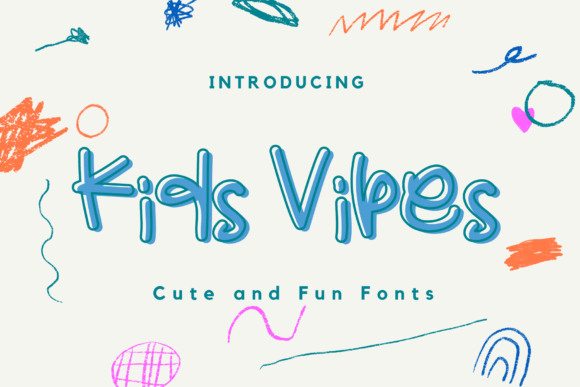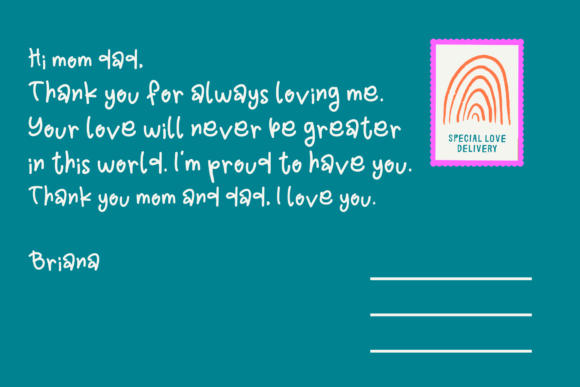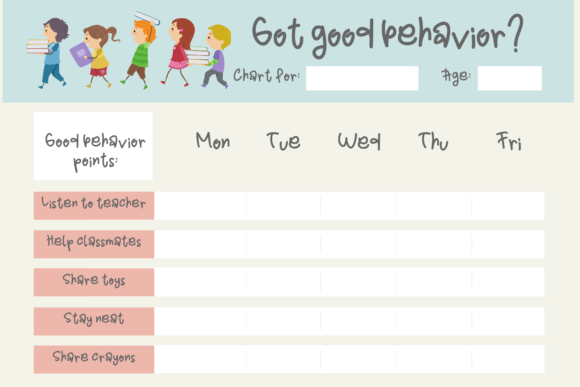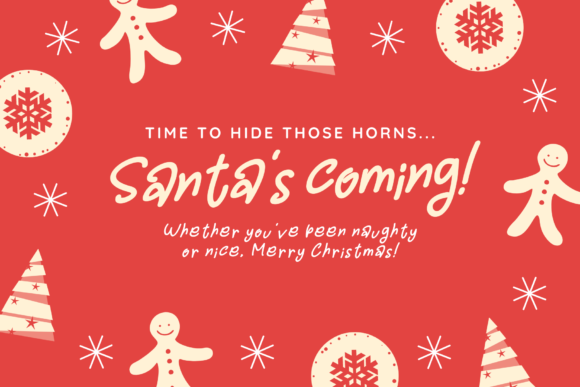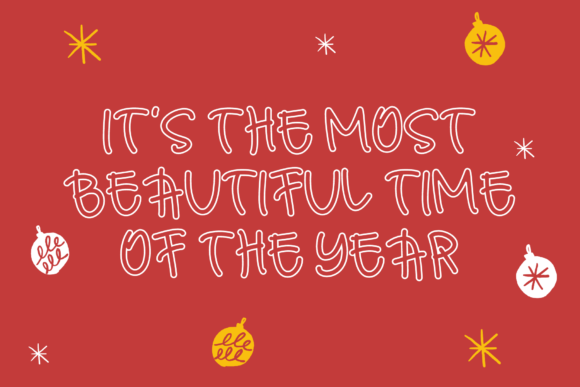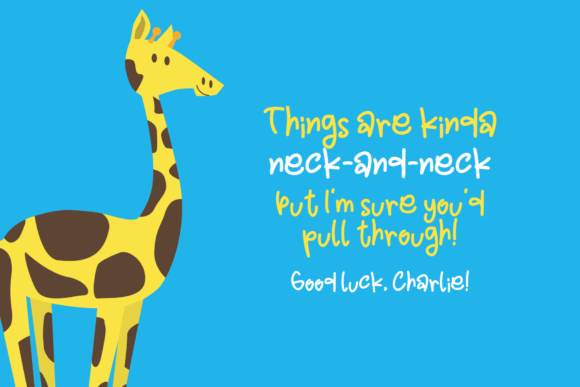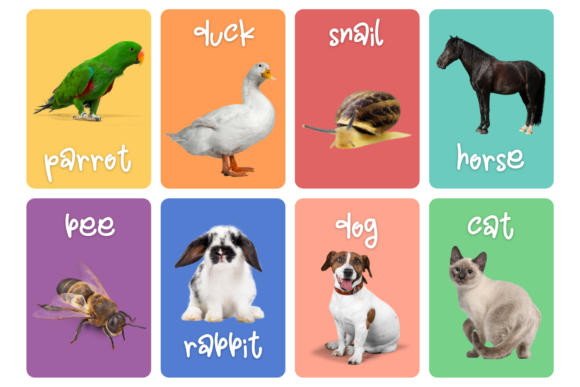
Unlocking Whimsy in Design: A Journey with Kids Vibes Font
Have you ever found yourself doodling in a notebook, letting your imagination run wild as you create fantastical worlds and characters? It’s in those moments of unbridled creativity that we tap into our inner child, and it’s exactly this spirit that the Kids Vibes Font embodies.
As a display font, Kids Vibes Font brings a touch of modern whimsy to your designs, transporting your audience to a realm of wonder and enchantment. With its playful, quirky style, it’s the perfect tool for designers looking to add a dash of magic to their work.
Whether you’re crafting a children’s book, designing a brand for a family-friendly business, or simply looking to inject some personality into your next project, the Kids Vibes Font is an invaluable asset in your creative toolkit.
Kids Vibes Font Key Features
- Font Family: Kids Vibes is a custom-designed font family with a unique, playful style.
- Unique Characteristics: Features a distinctive, hand-drawn style with a mix of bold and cursive elements, making it perfect for children’s content, educational materials, and playful designs.
Kids Vibes Font Review
I recently had the chance to work with the “Kids Vibes Font” and I must say it’s a mixed bag. Here are my honest thoughts:
- Unique aesthetic: The font has a quirky, playful feel to it that’s perfect for kids’ projects or designs that require a lighthearted touch.
- Clear readability: Despite its whimsical design, the font is still easy to read, even at smaller sizes.
- Customization options: The font comes with a range of customization options, including different color schemes and sizes.
- Limited versatility: While the font is great for kids’ projects, it may not be the best choice for more serious or professional designs.
- Overuse potential: The font’s playful design could easily become overused or clichéd if not used thoughtfully.
- Limited language support: The font may not support as many languages as more standard fonts.
Overall, I think the “Kids Vibes Font” is a great choice for projects that require a fun, lighthearted feel. However, it may not be the best choice for more serious or professional designs. With careful use and consideration of its limitations, this font can add a lot of personality to your designs.
The “Kids Vibes Font” is perfect for creating fun and playful designs for kids’ parties, nursery decorations, or children’s books.
To get the most out of this font, use it in combination with bright and colorful graphics and illustrations.
Alternatives to “Kids Vibes Font” for Designers
Great Vibes Font is a modern and elegant script font designed by Pablo Impallari. It is ideal for use in branding, advertising, and editorial designs. Great Vibes Font is a great alternative to Kids Vibes Font as it offers a more sophisticated and refined look. It has a similar playful feel but with a more polished appearance.
Alex Brush Font is a beautiful, hand-drawn script font designed by Laura Worthington. It is perfect for use in wedding invitations, stationery, and other design projects that require a touch of elegance. Alex Brush Font is a great choice for designers who want a font with a more whimsical and organic feel. Compared to Kids Vibes Font, Alex Brush Font is more refined and sophisticated.
Pacifico Font is a beautiful, elegant script font designed by Vic Fieger and Joe Prince. It is ideal for use in branding, advertising, and editorial designs. Pacifico Font is a great alternative to Kids Vibes Font as it offers a more relaxed and casual feel. It has a similar playful and laid-back vibe but with a more refined appearance.